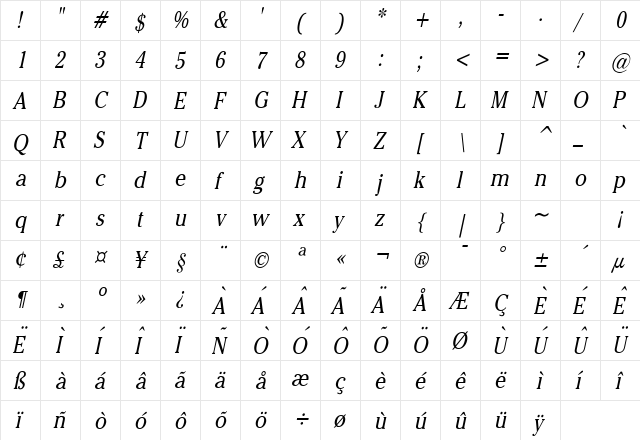
Chelsey Condensed Italic Font Preview
Design Context for Chelsey Condensed Typeface
Chelsey Condensed offers clean, dependable letterforms without strong stylistic allegiance, making it a practical choice for designers who need flexibility. Its italic angle brings a sense of urgency and motion to the letterforms. The condensed width makes it efficient for tight spaces without sacrificing legibility.
Pro Tip: Try Chelsey Condensed for annotation and caption copy alongside an upright companion — the contrast in angle creates a dynamic but ordered typographic system.